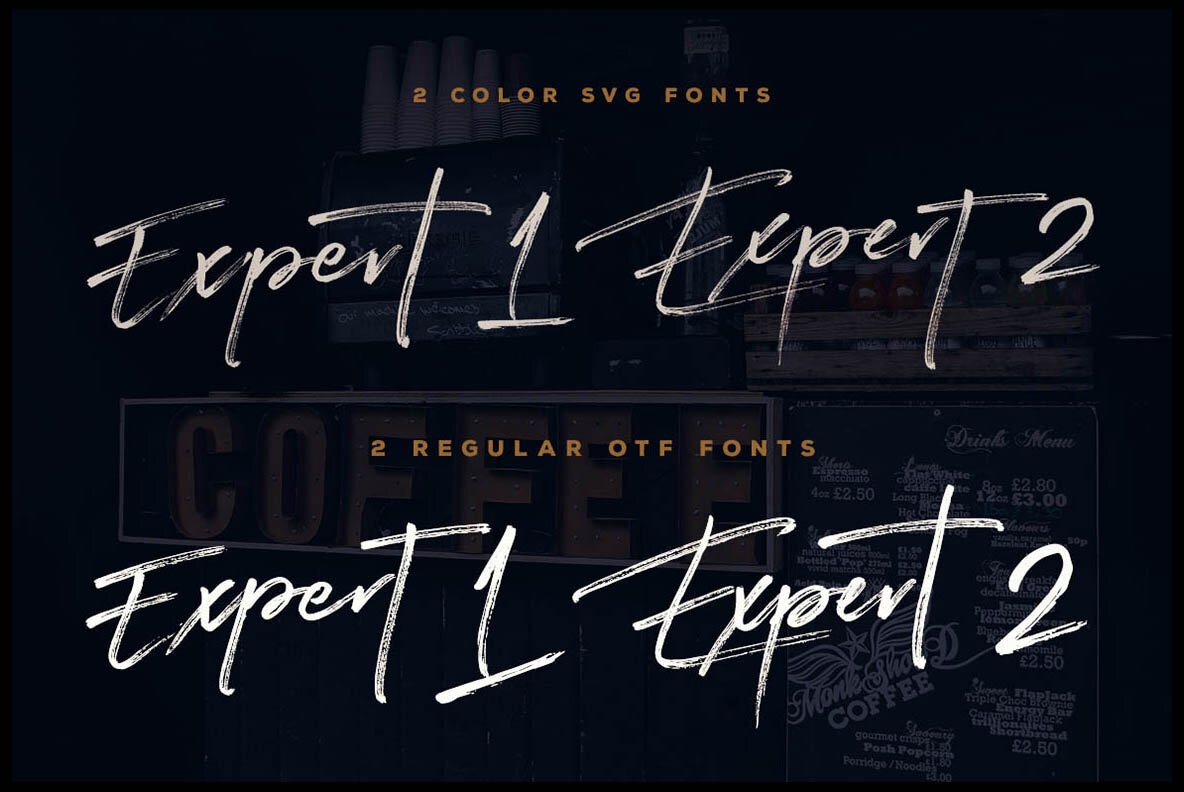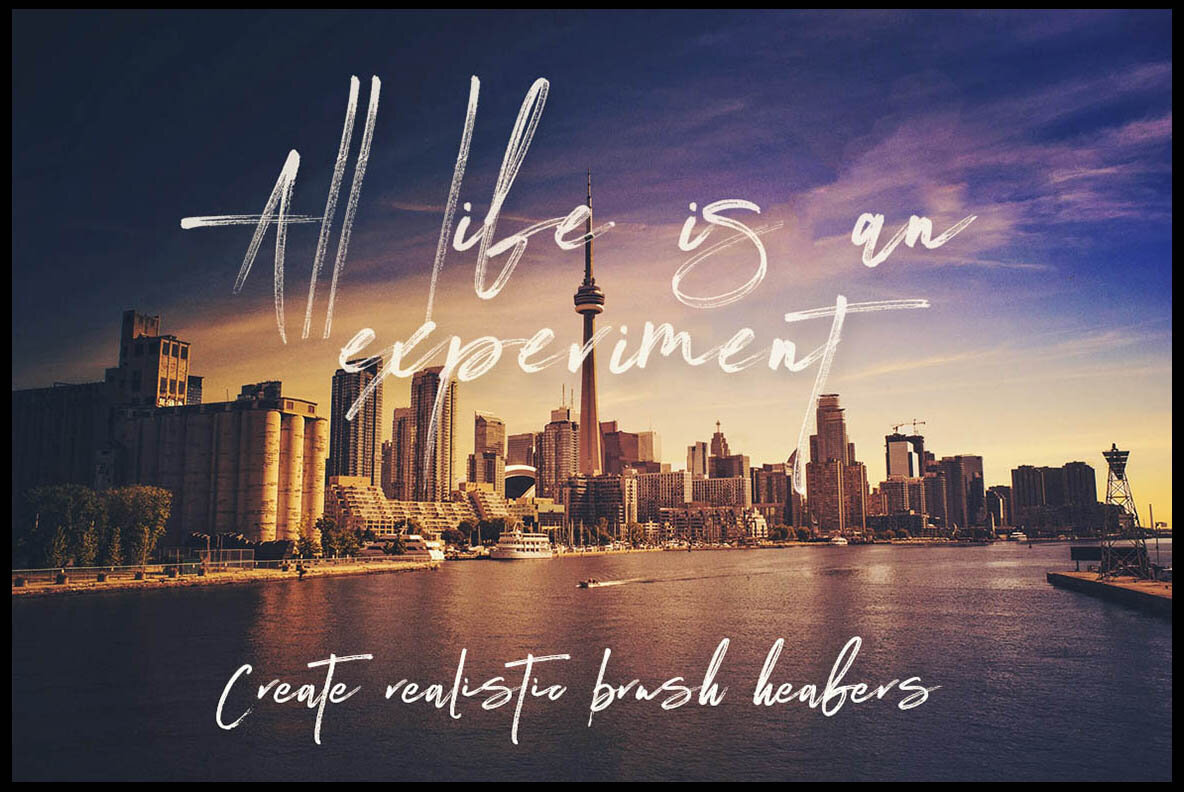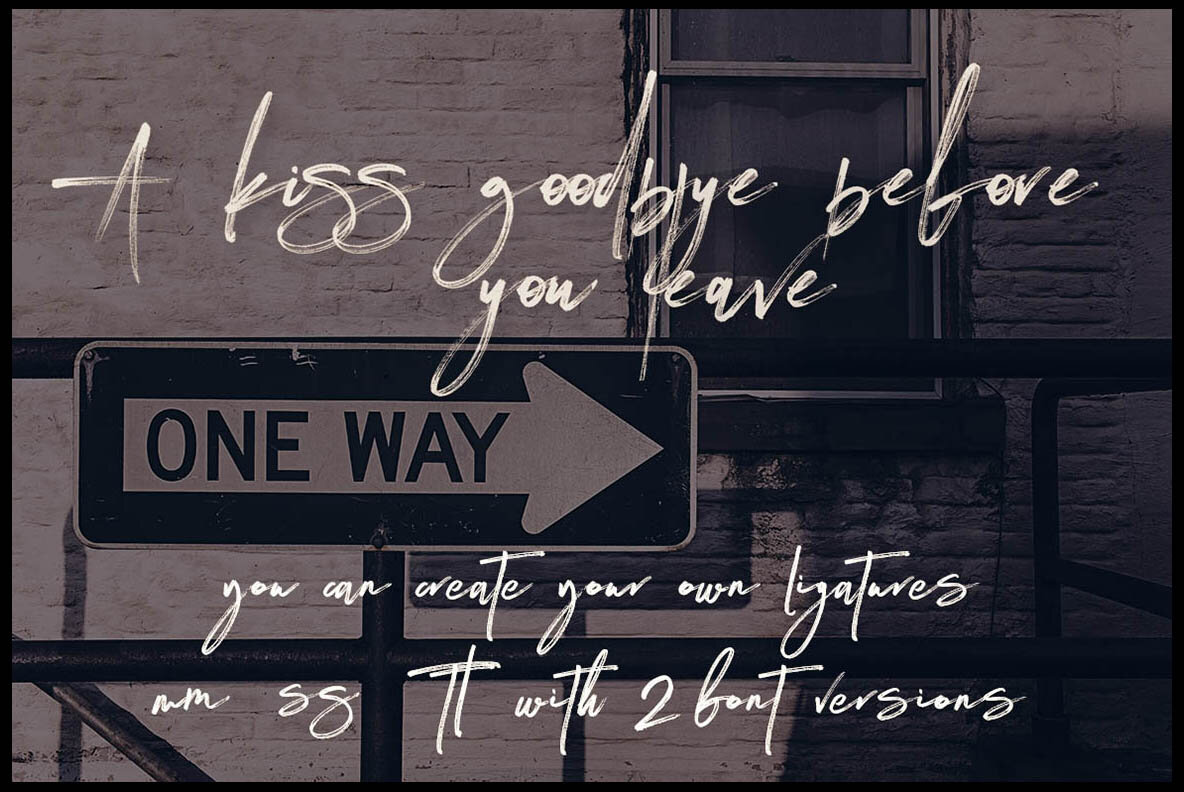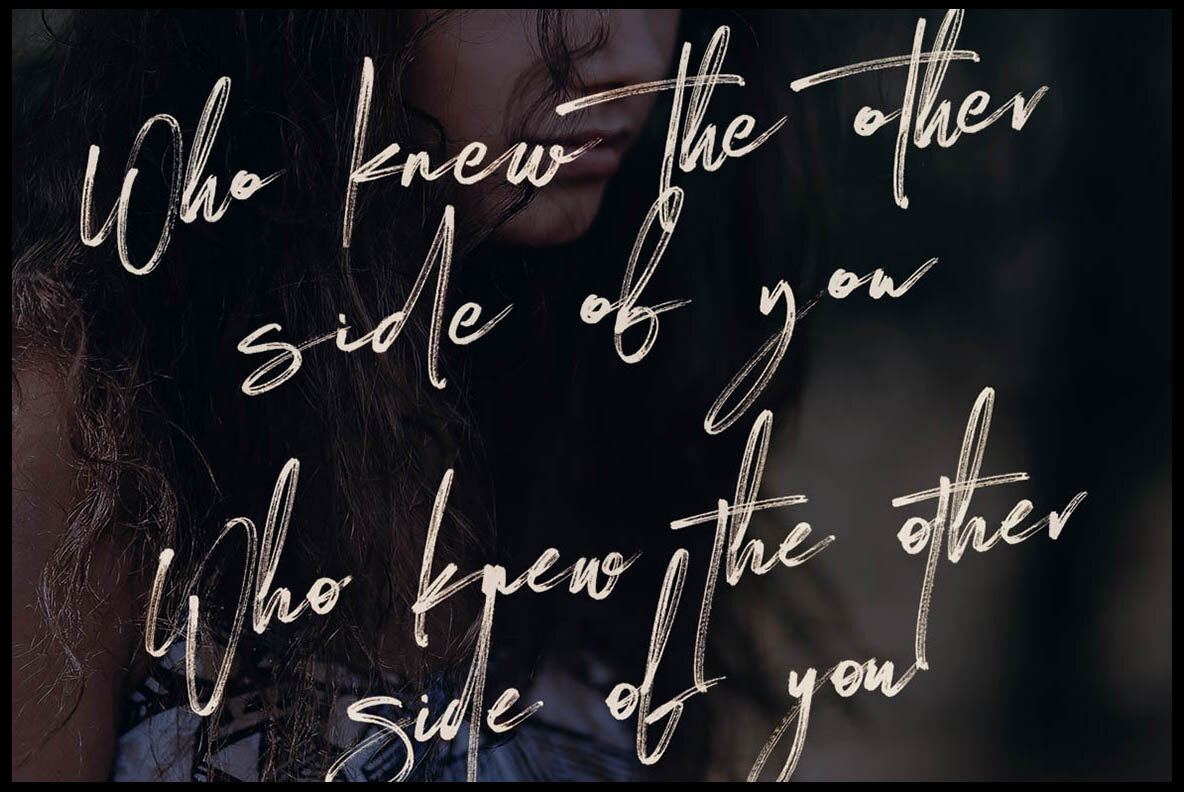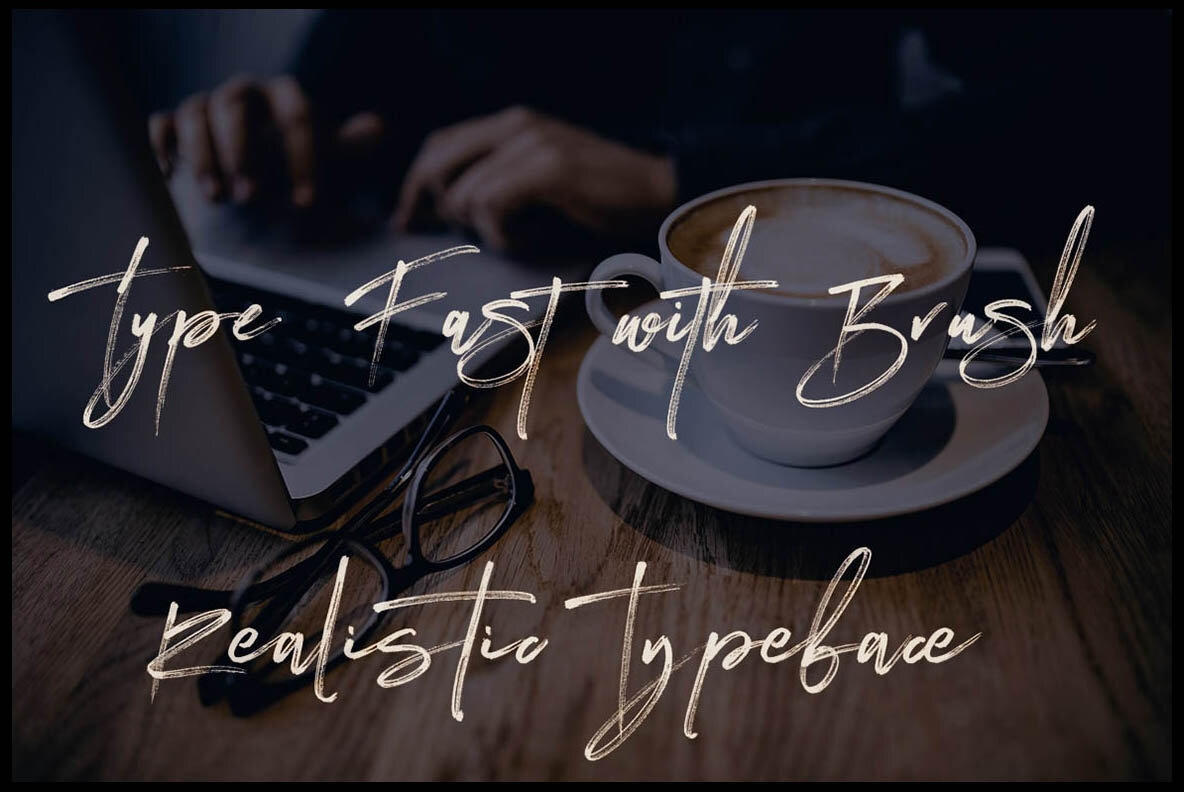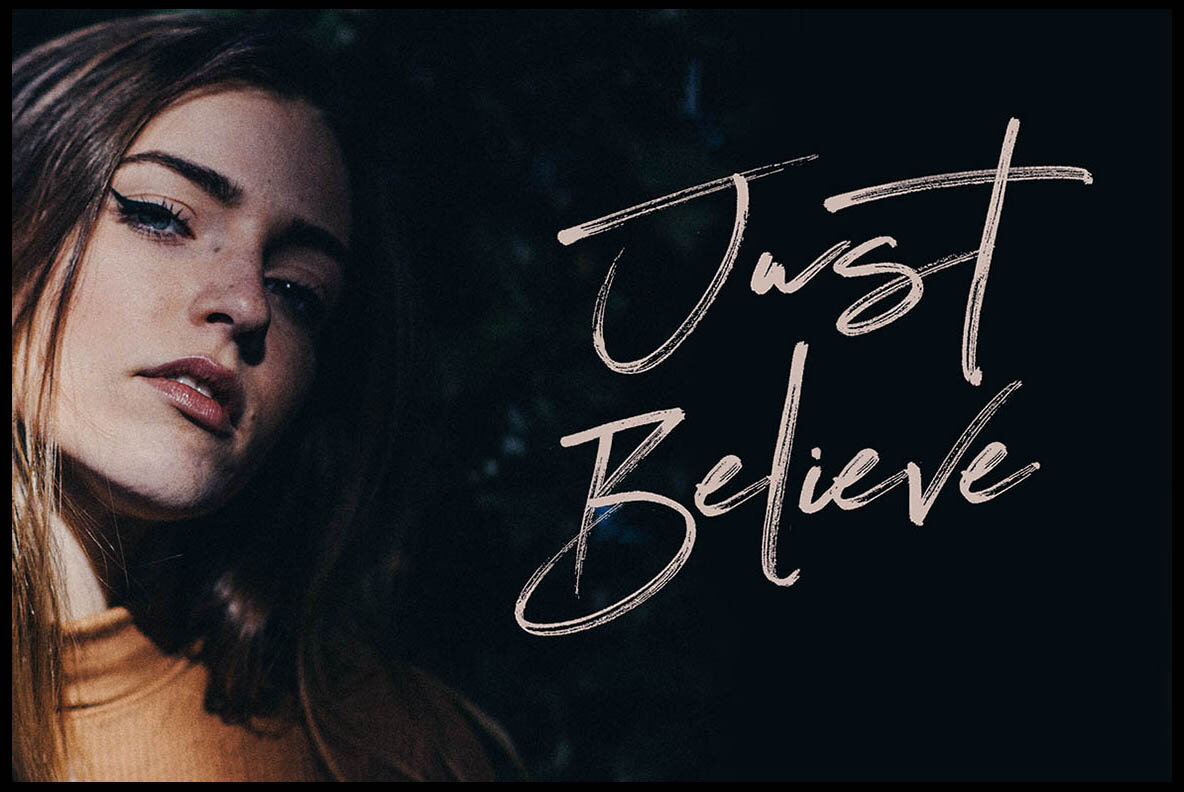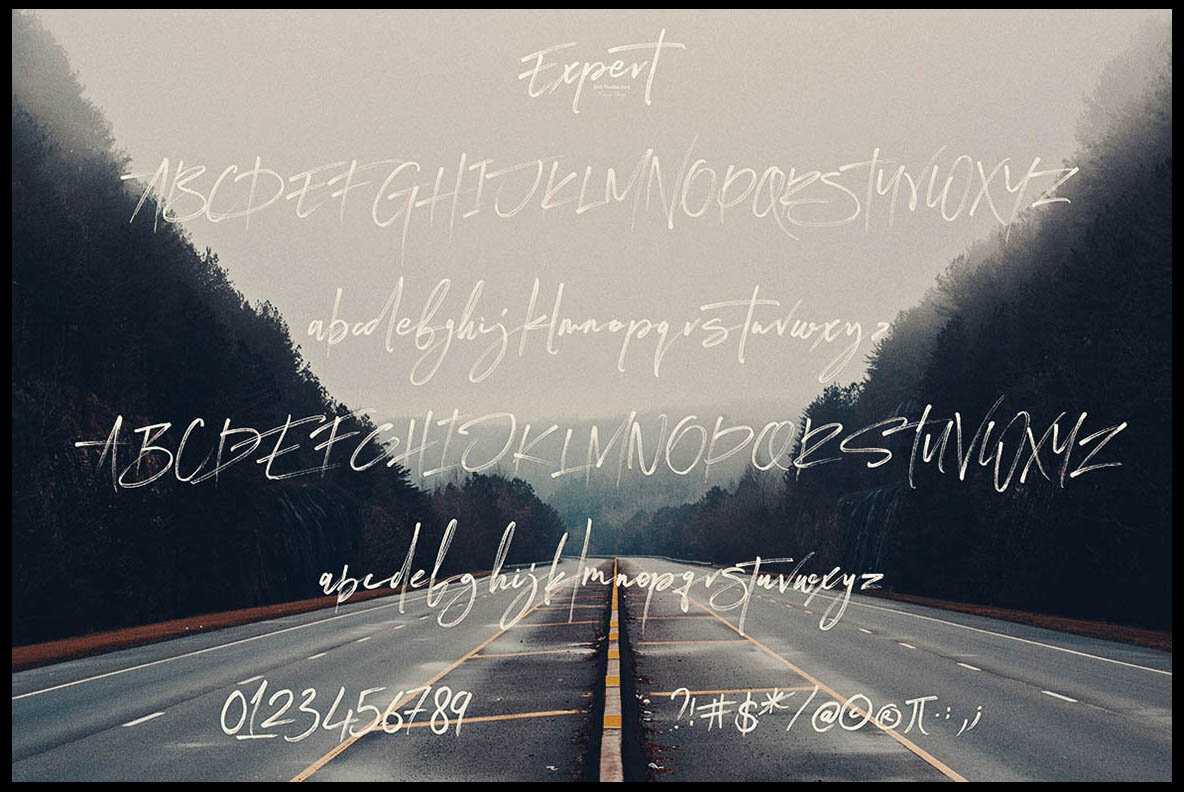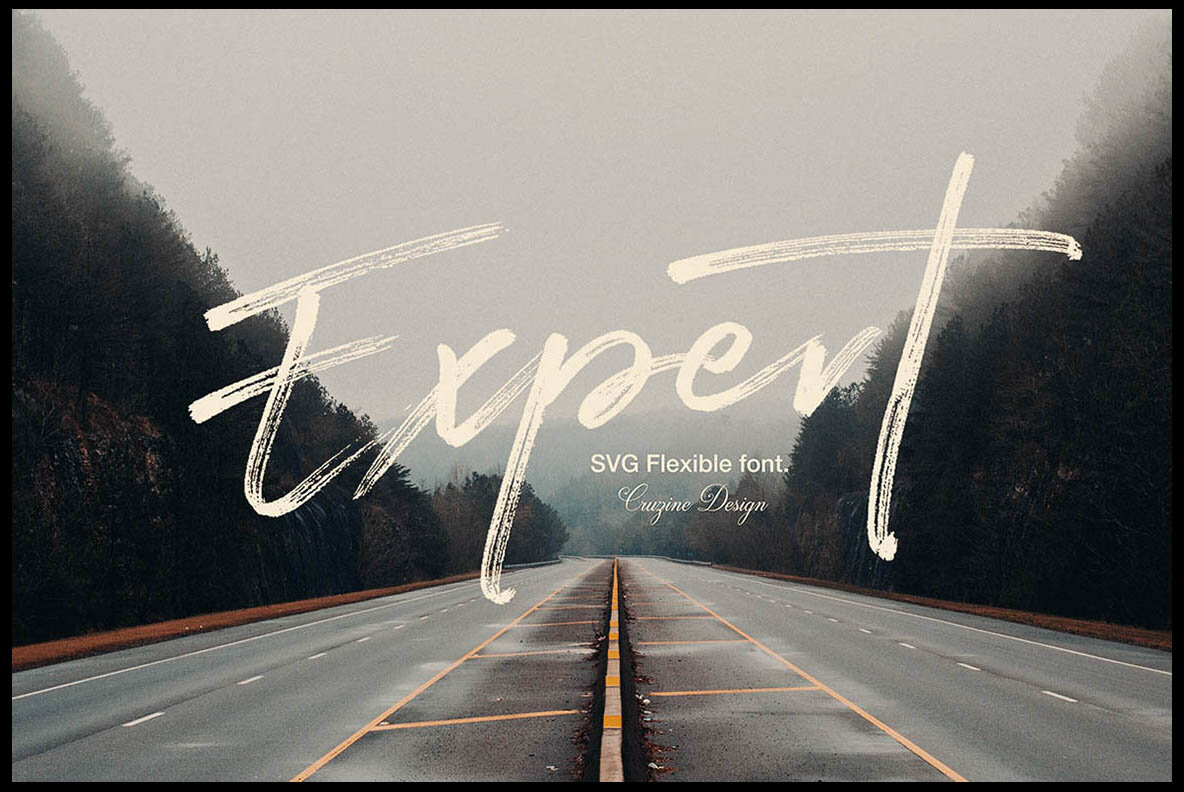
Expert Brush Font
Expert Brush is a brush-style script display font, ideal for your next creative endeavor. Whether you're working on grunge or artistic projects, this font adds a dynamic and textured aesthetic.Expert Brush by Peter Olexa: Bold Script for Artistic Projects